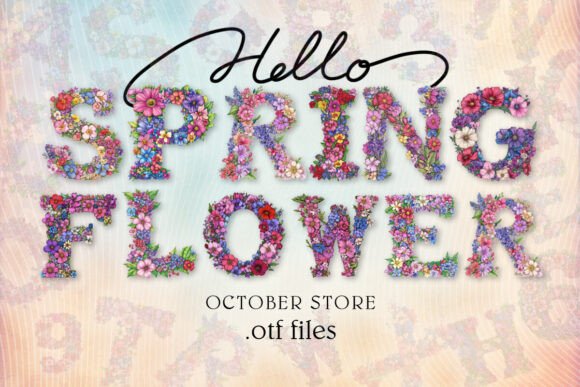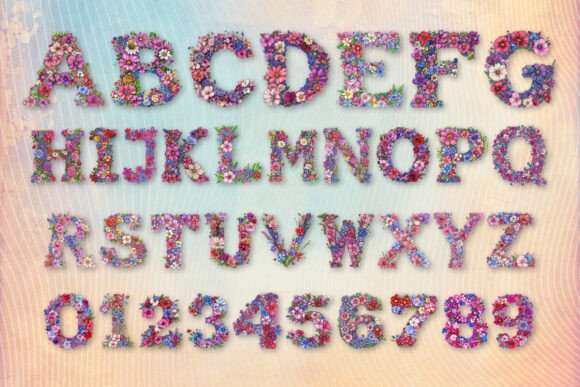
Spring Flower Font
Immerse yourself in the refreshing spirit of spring with the Spring Flower Alphabet. This enchanting font set boasts of a collection of 36 characters, brimming with the vitality of 26 lively letters and 10 dynamic numbers. Each eloquent character is adorned with exquisite flowers, celebrating the vibrant beauty of the spring season. Harness the divine energy of a new year as you grace your designs with these beautiful floral emblems. The Spring Flower Alphabet captures Mother Nature’s artistry, transforming it into a staggering font presentation. Breathe life into your work with this charming set, infused with flourishing blooms that reflect the sheer beauty and charisma of the season of renewal.